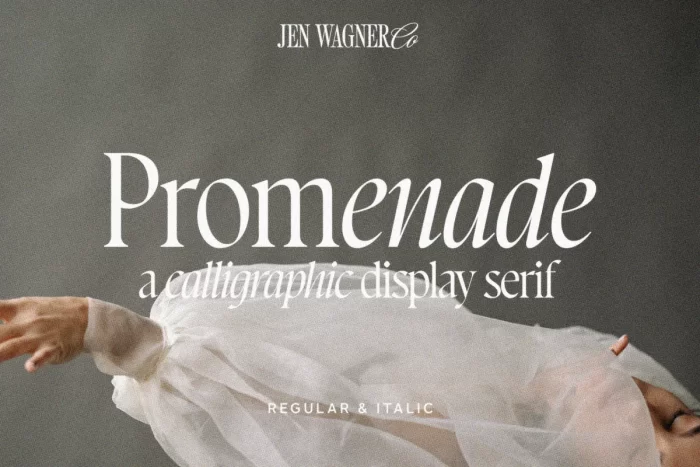
Promenade Font
Promenade is a calligraphic serif font that started on paper with a flat nib pen, and blossomed into a full serif with italics. It is perfect for your design needs such as making nostalgic but still clean and elegant designs such as headlines, magazines, logo designs, packaging, editorials, invitations.
One thing to note about Promenade is the letter spacing. It was spaced for clean reading and intentional balance, so I recommend setting the spacing a little tighter if you want to create the display look found in many of the logo mockups.